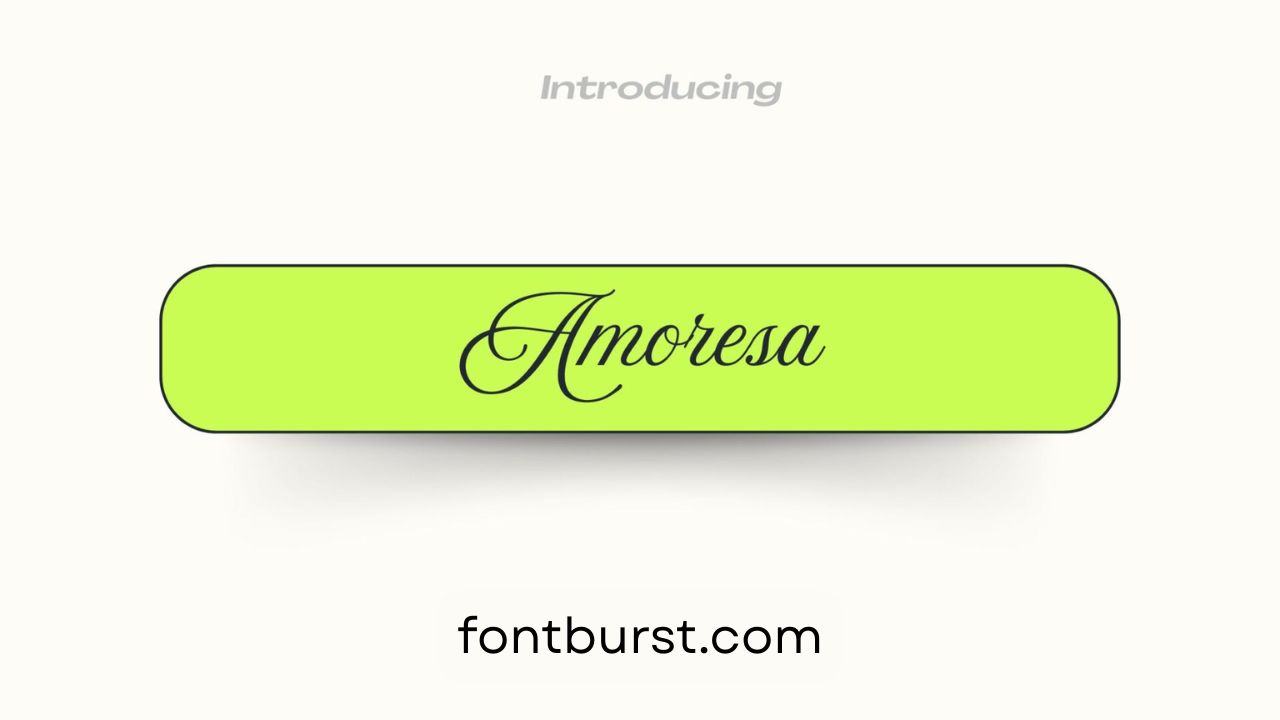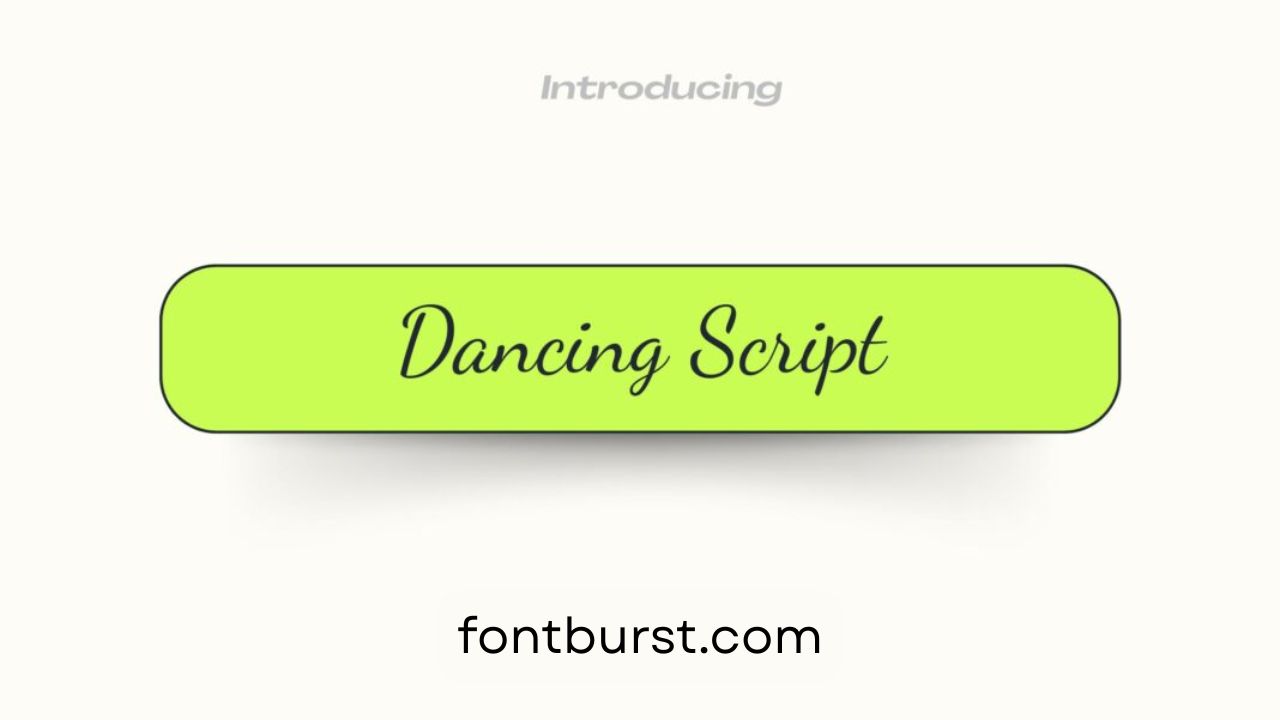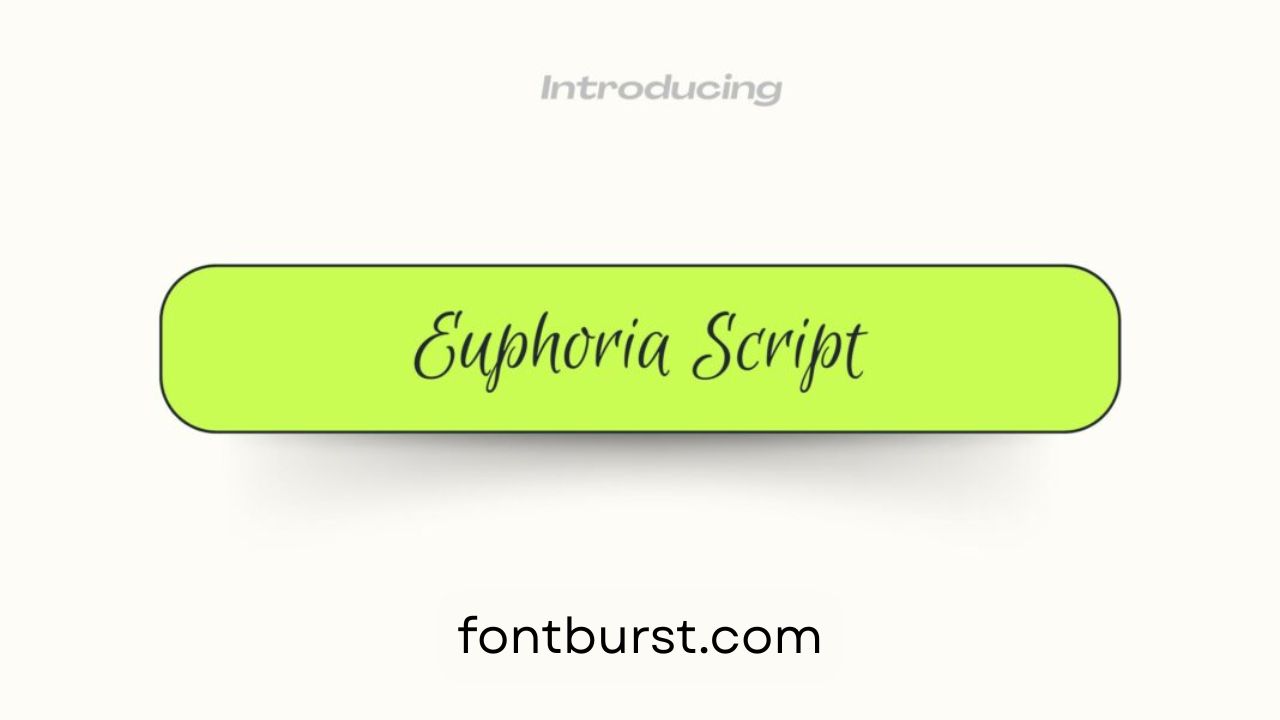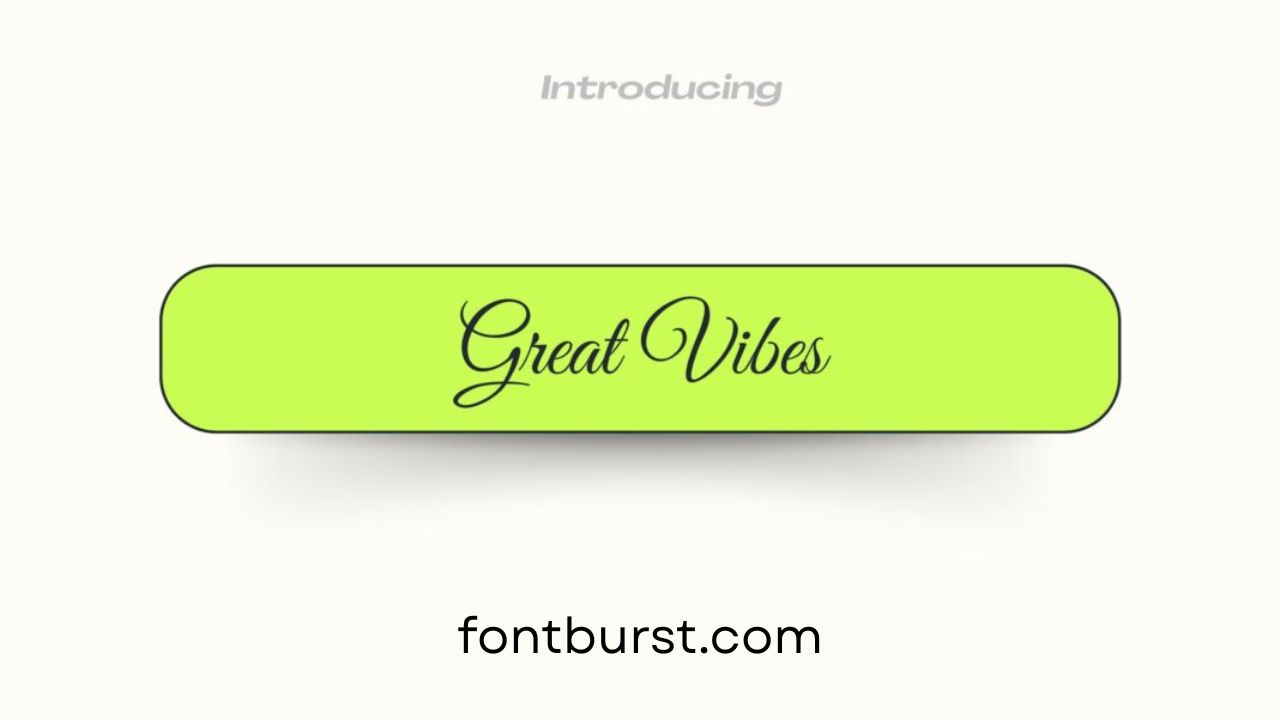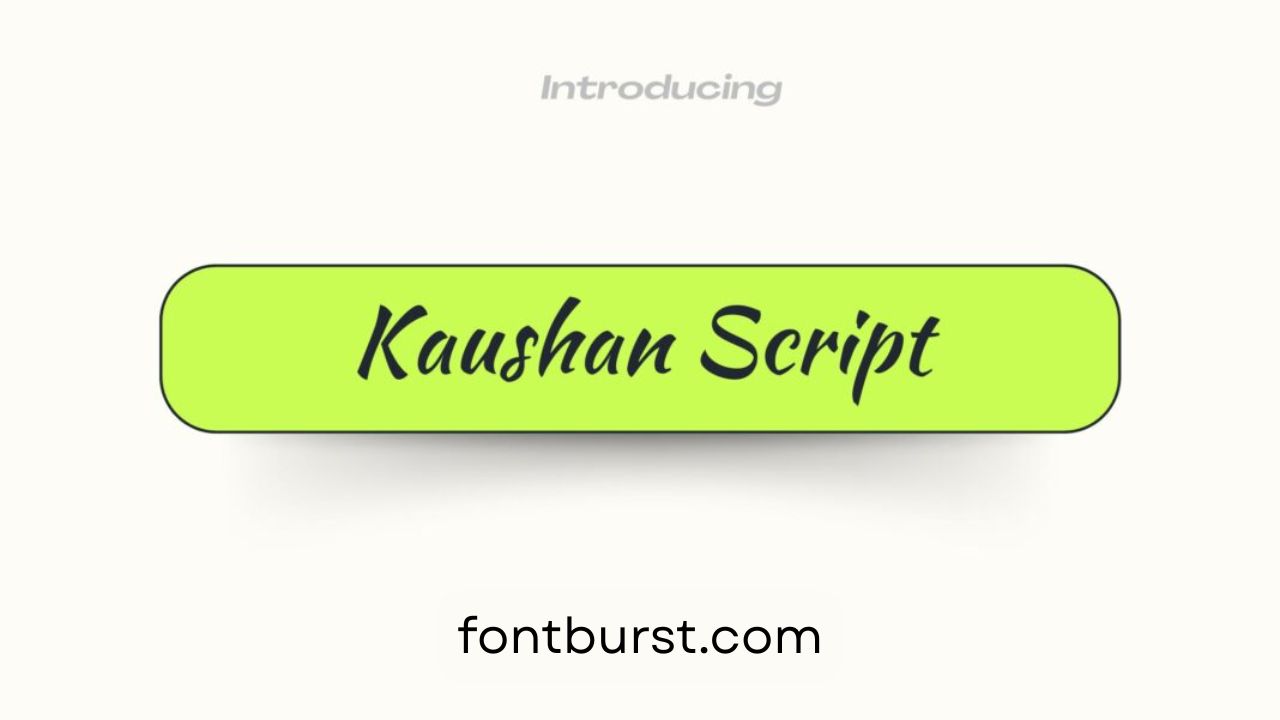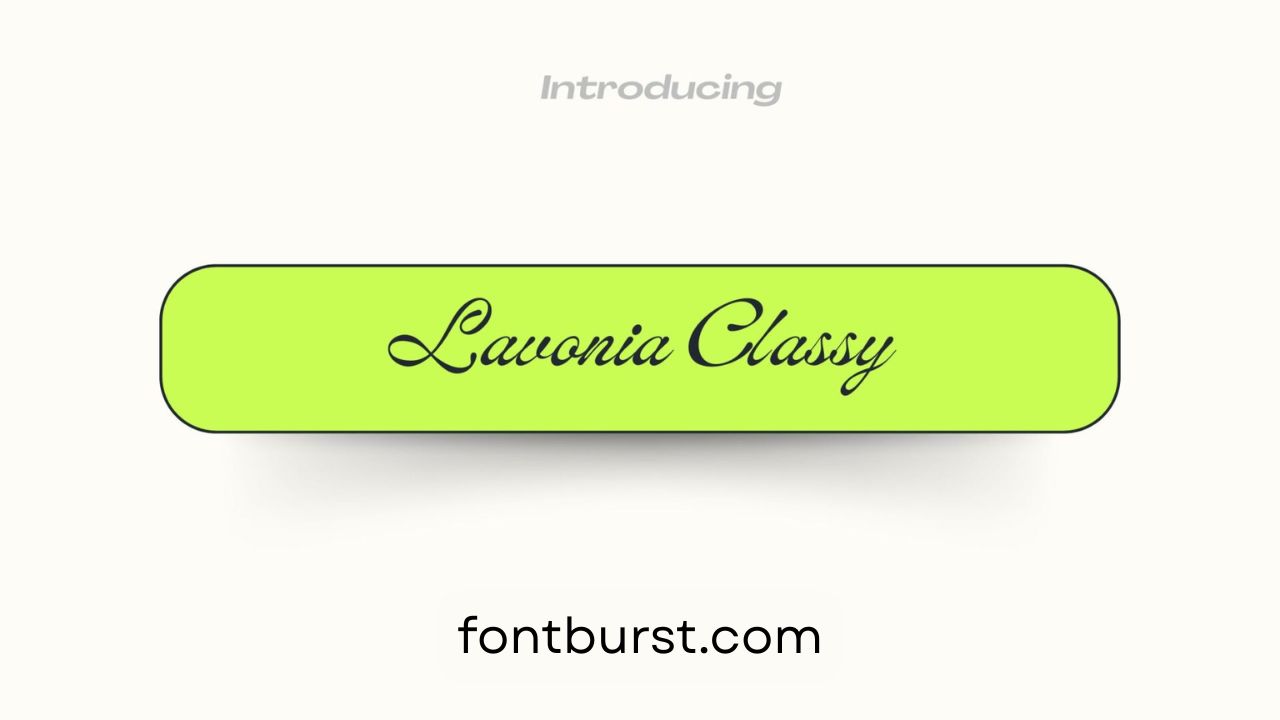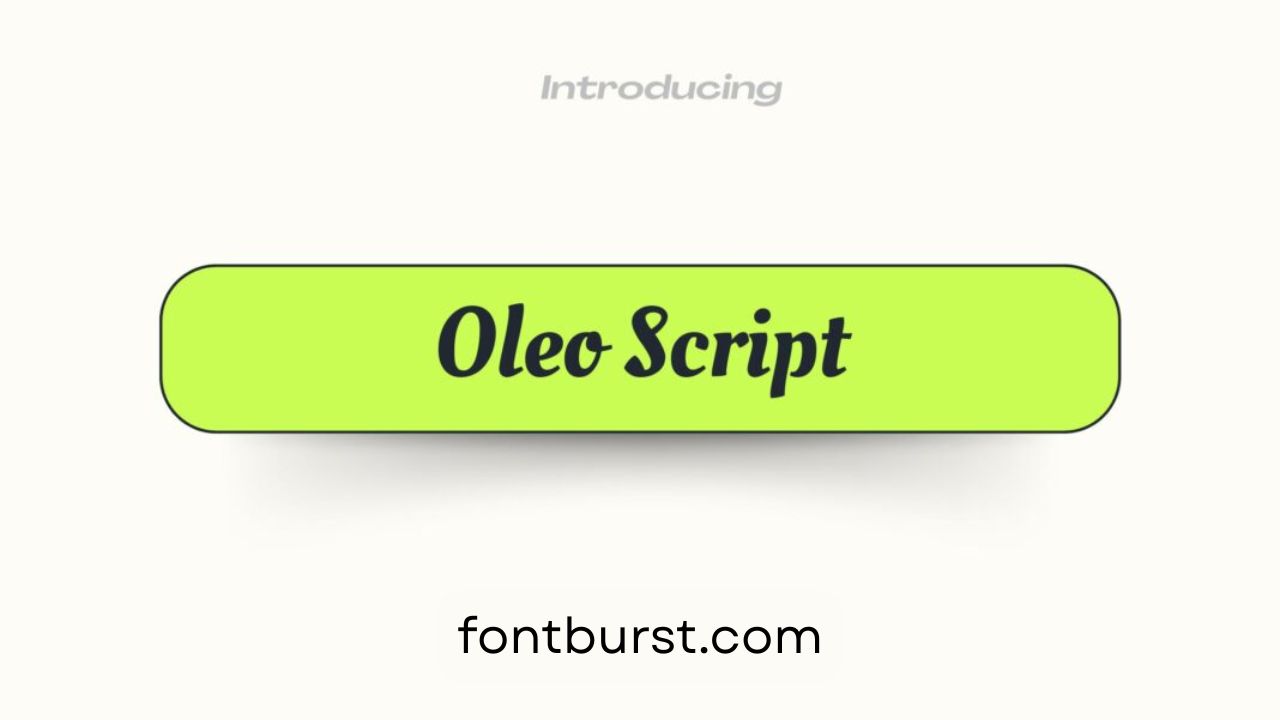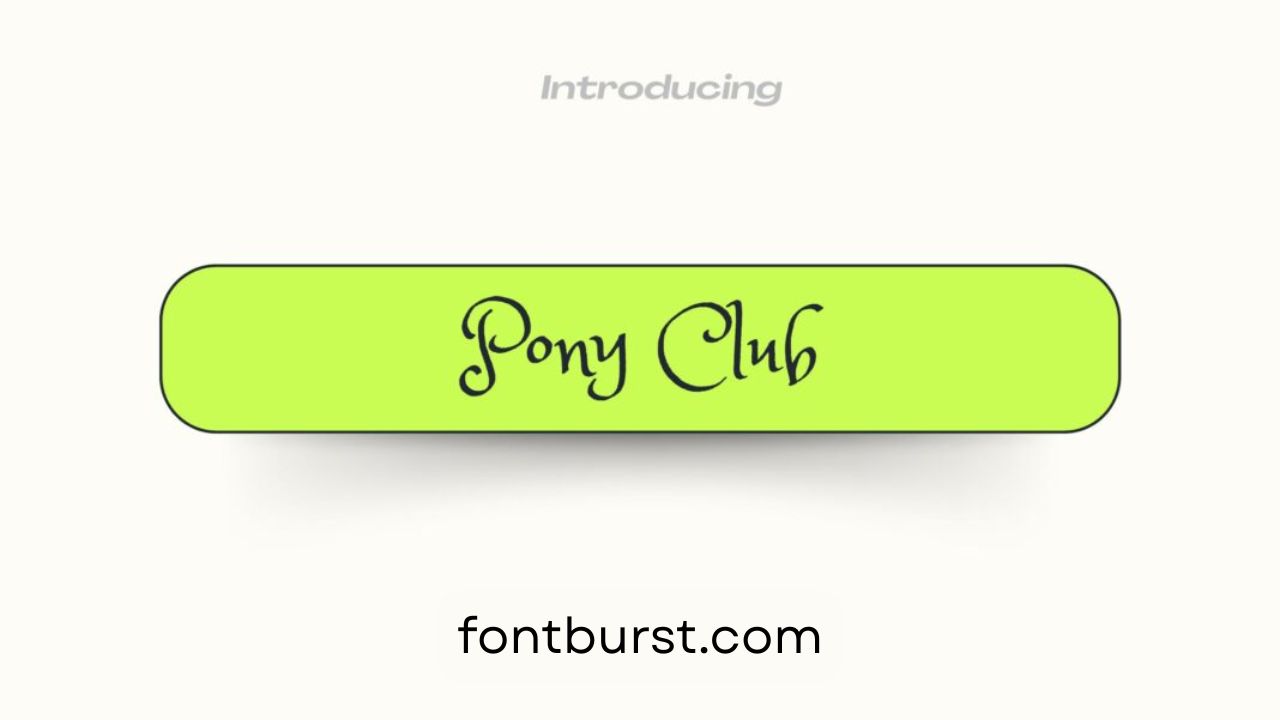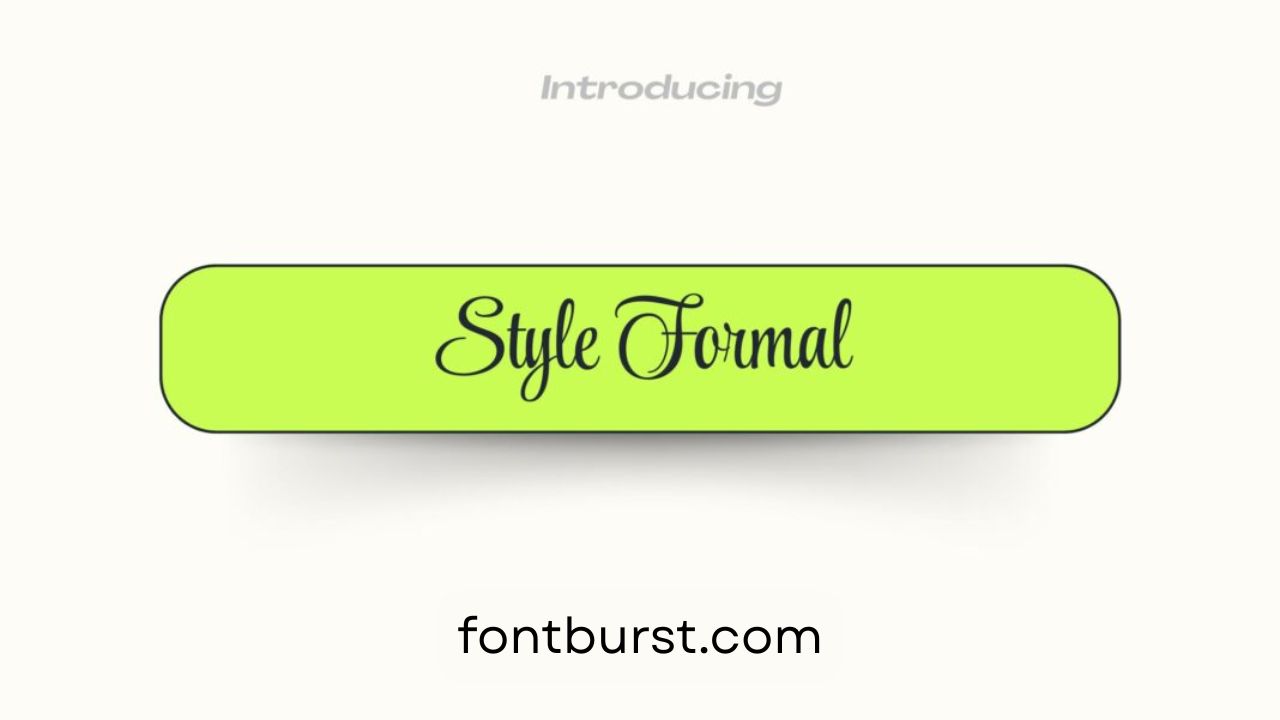
Wedding Calligraphy Fonts on Canva
One of the most fun parts of planning a wedding is making the invitations. The style you pick can make a big difference. Fonts can show many different styles and feelings, which can help set the mood for your wedding. Beautiful wedding calligraphy fonts can give your invites a personal love and care of class, romance, and personality. They will stand out to guests and give them a sneak peek at the big day to come.
Canva has many stylish calligraphy styles that would look great on wedding invitations. Each one is different in how it looks and works. We’ll look at some of the best wedding handwriting fonts on Canva and talk about what makes each one unique and how it can fit with your wedding theme.
Top Wedding Calligraphy Fonts For Digital Wedding Invitation Designs on Canva
Lavonia Classy Font
Lavonia Classy is a timeless font with smooth, sophisticated curves. Its refined look makes it ideal for formal wedding invitations.Key Features:
• Graceful strokes and a clean finish for added elegance
• Looks best for headings, names, or main details on invitations
Best for: Traditional or formal weddings with a focus on luxury and sophistication.
Amoresa Font
Amoresa exudes romance and has a whimsical feel that adds charm to invitations.Key Features:
• Delicate lines and a soft, dreamy aesthetic
• Ideal for names, headers, or decorative elements
Best for: Romantic or vintage-themed weddings that want a fairytale, whimsical vibe.
Alex Brush Font
Alex Brush is a clean, modern script font that’s elegant yet easy to read.Key Features:
• Smooth, rounded letters with a classic look
• Works well for names or body text in a minimalist invitation
Best for: Modern weddings that aim for simplicity with a touch of elegance.
Style Formal Font
Style Formal is structured and sophisticated, adding a high-end, polished feel to invitations.Key Features:
• Strong, precise strokes that give emphasis to important text
• Great for headers or main sections
Best for: Formal weddings with a refined, luxurious theme.
Pony Club Font
Pony Club offers a relaxed and rustic look that’s charmingly casual, perfect for informal weddings.Key Features:
• Soft edges and inviting design for a cozy feel
• Brings a down-to-earth touch to invitations
Best for: Outdoor, rustic, or barn weddings, creating a warm and friendly atmosphere.
Kaushan Script Font
Kaushan Script is bold and has a spontaneous look, making it ideal for couples seeking a handwritten feel.Key Features:
• Dynamic lines that mimic a personalized handwriting style
• Adds a warm, personal touch
Best for: Casual or intimate weddings that want a handcrafted, personalized vibe.
Euphoria Script Font
Euphoria Script combines elegance with a touch of playfulness, giving it a versatile charm.Key Features:
• Smooth, flowing letters that feel friendly and approachable
• Suitable for names, quotes, or special details
Best for: Semi-formal weddings that mix elegance with light-hearted charm.
Great Vibes Font
Great Vibes is a classic, balanced font known for its readability and graceful curves.Key Features:
• Flowing, clear lines suitable for body text or headings
• Gives a timeless, elegant look
Best for: Classic weddings that want an inviting, universally appealing font.
Oleo Script Font
Oleo Script is a lively, bold font, perfect for couples looking for an inviting, playful style.Key Features:
• Rounded, thick strokes with a cheerful feel
• Suitable for headings or main elements on invitations
Best for: Playful or relaxed weddings that want a welcoming and fun look.
Dancing Script Font
Dancing Script gives an elegant yet casual handwritten look, adding a personal touch to invitations.Key Features:
• Flowing lines that feel warm and approachable
• Perfect for names, short quotes, or main headers
Best for: Vintage or rustic-themed weddings, creating a cozy, intimate feel.